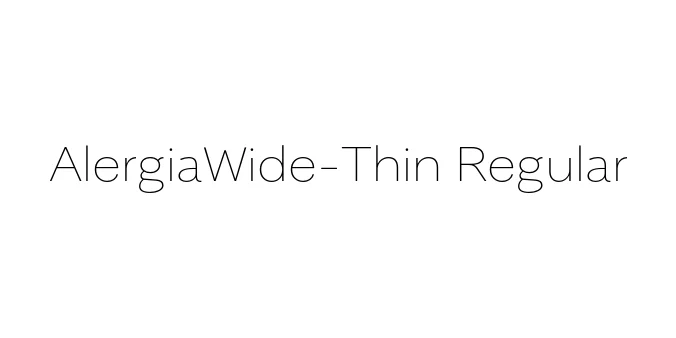
AlergiaWide-Thin Regular
Designed by Mateusz Machalski
Alergia Wide is a contemporary sans-serif typeface family designed by the renowned Polish typographer Mateusz Machalski. Part of the more extensive Alergia super-family, this font explores the intricate balance between geometric precision and humanistic warmth. The Thin Regular variant is specifically crafted to provide a delicate, ethereal aesthetic, utilizing expanded horizontal proportions that command attention in high-end editorial and minimalist design contexts.
Released through the Borutta Group, Alergia Wide Thin Regular features open counters and a distinct visual rhythm that excels in large-scale applications. Its sophisticated profile makes it a favorite for luxury packaging, architectural signage, and premium web interfaces where white space and elegance are paramount. The font stands as a testament to modern Polish type design, blending functional clarity with artistic flair.
AlergiaWide-Thin Regular Best Uses
Perfect for high-fashion magazines and sophisticated layout headlines.
Ideal for minimalist logos and luxury brand identities.
Great for large-scale digital displays and modern web hero sections.
Suitable for architectural signage and environmental graphics.